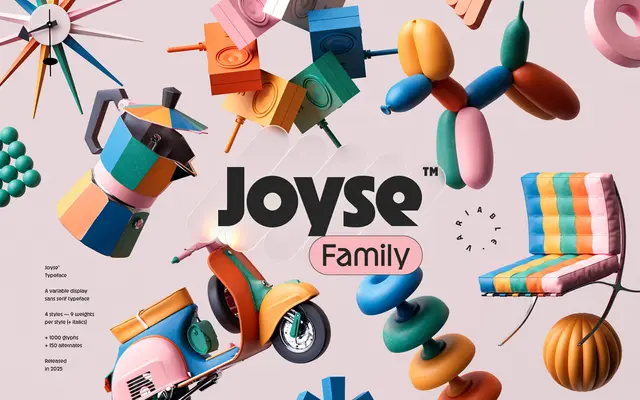
Joyse
Almarena · Jérémie Gauthier · 2025
Joyse specimen from Almarena
A display sans by Jérémie Gauthier with four stylistic variants, blending exaggerated curves with sharp breaks drawn from post-modernist and vintage graphic sources.
Released in 2025, Joyse spans nine weights per style, each with matching italics, across four subfamilies: Original, Straight, Smooth and Classic. The design draws on the visual language of vinyl sleeve lettering and neon signage, pairing generous rounded forms with abrupt angular cuts. Available as both static OTF files and a variable font with weight and italic axes, it is aimed at logotypes, poster work and editorial contexts where strong graphic presence is needed.
A display sans-serif with exaggerated curves and sharp angles drawn in four distinct stylistic variants; its vintage-inflected, high-contrast character places it firmly in the display category rather than a neutral sans-serif.